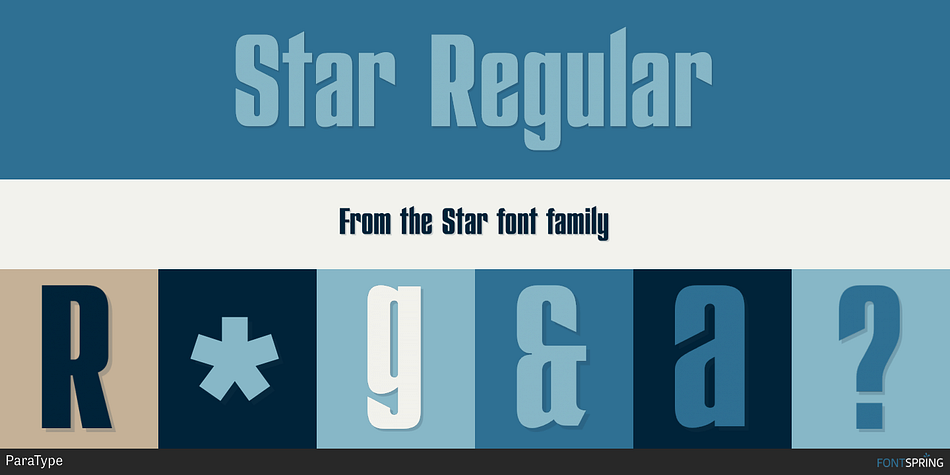
Star Regular
Designed by Alexander Tarbeev, Star is a grunge and display sans font family. This typeface has two styles and was published by ParaType.
Star was designed at ParaType (ParaGraph) in 1995 by Alexander Tarbeev, based on PT Compact, 1991, by Vladimir Yefimov. A decorative style was added in 1996. It is best suited for use in advertising and display typography.